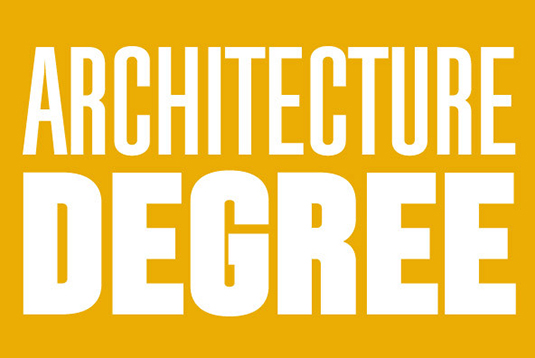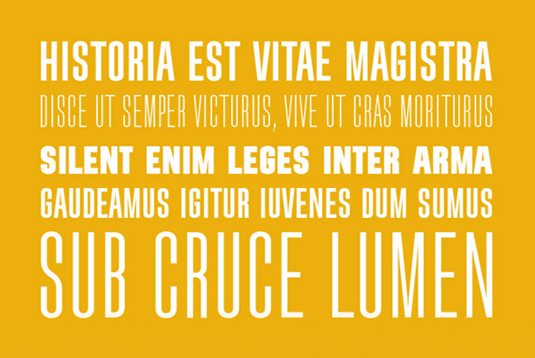
Font of the day: Ticketbook
Every day we showcase the best fonts on the web. Today it's Ticketbook from the Suomi Type Foundry.
Ticketbook by the Suomi Type Foundry
Today's font of choice, Ticketbook, was created by the Finnish font fanatics at the Suomi Type Foundry. The foundry wanted to create a compressed type family for use on movie posters as the commonly-used Univers and Helvetica Compressed lack variants. Therefore, they came up with Ticketbook which has seven weights for more versatility.